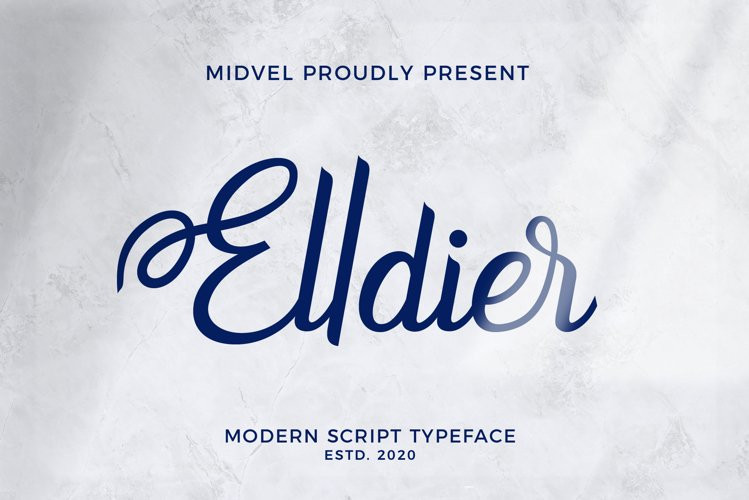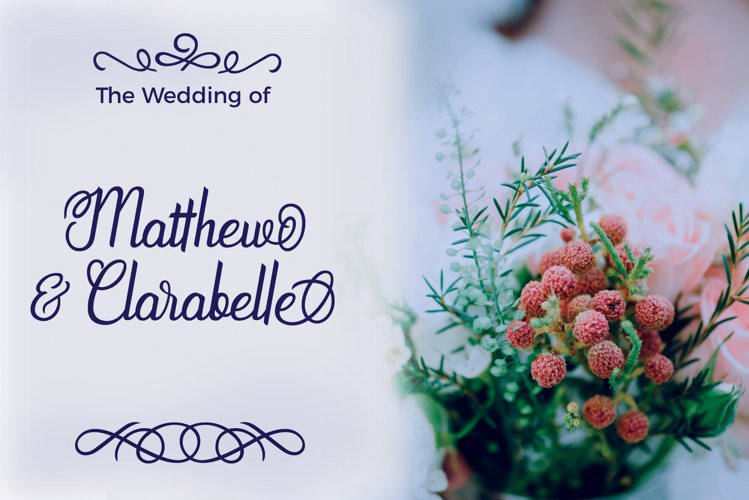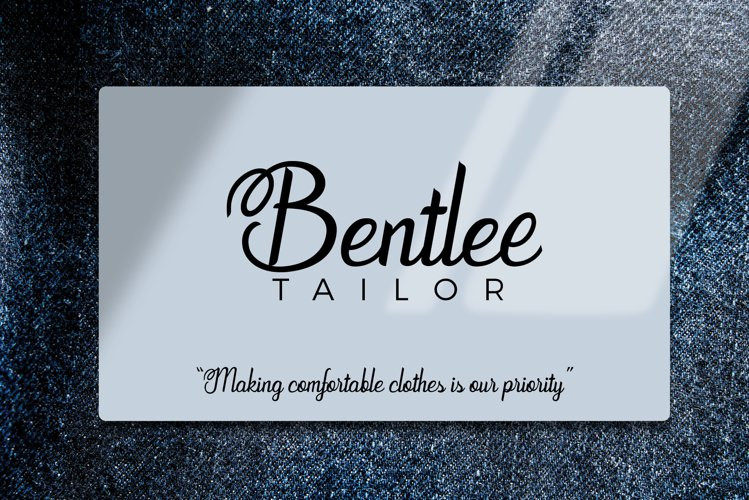
Elldier Font
ElldierElldierElldierDo you need modern script font for your design? Maybe your design matches with this font. This is Elldier Font, It is perfect for wedding sign, advertisement, logo design, quote, product lable, product packaging, T-shirt Lettering design and any project. You can use opentype feature to make design more attractive,